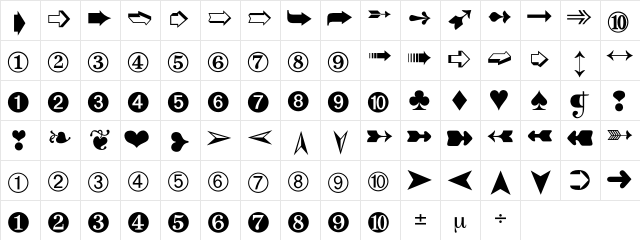
Moredings Regular
Design Context for Moredings Typeface
Moredings takes a measured approach to typography — its balanced proportions and neutral character make it a reliable workhorse for both digital and print work.